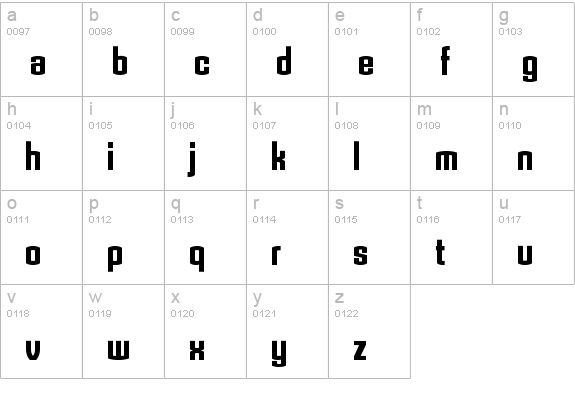
Armada-BoldCondensed Font Details
Armada-BoldCondensed is a striking and versatile font that demands attention with its bold and condensed appearance. Perfect for making a statement in headlines, titles, and branding materials, this font exudes strength and modernity. Its clean lines and sharp edges give it a contemporary aesthetic that is sure to make any design stand out. The best part is that Armada-BoldCondensed is available for free download at FontsMarket.com. This means you can easily access this powerful font to enhance your projects without any cost. Whether you're designing a poster, website, or logo, Armada-BoldCondensed is a fantastic choice to add a touch of boldness and sophistication. Download it now and elevate your designs with this impressive typeface.